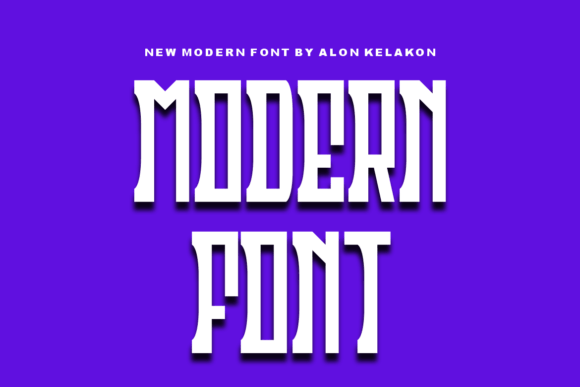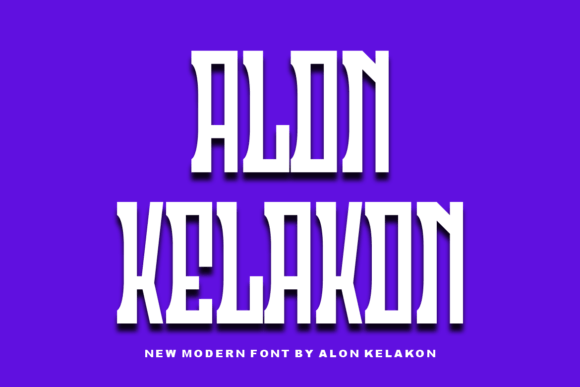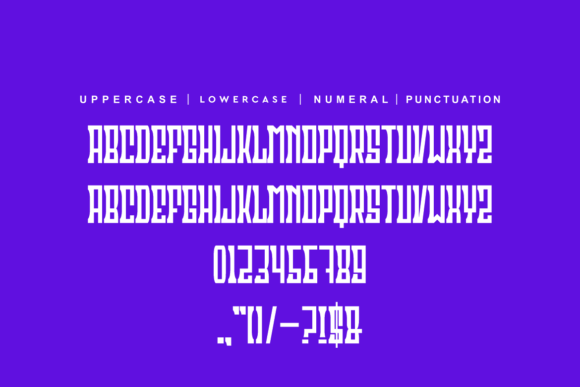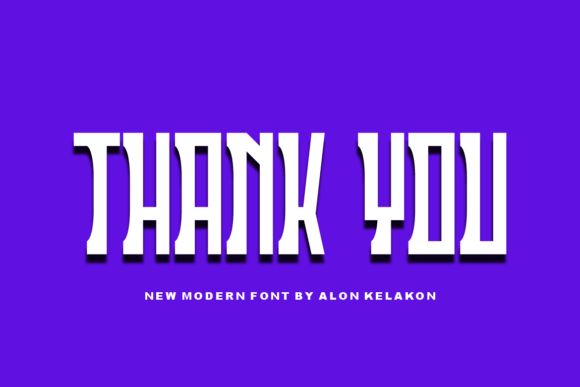
Introduction to Snoragez Font
This font is perfect for your creative ideas, both formal and informal.
It has a modern style with a touch of creative ideas that is very suitable to be applied anywhere that requires creative ideas .